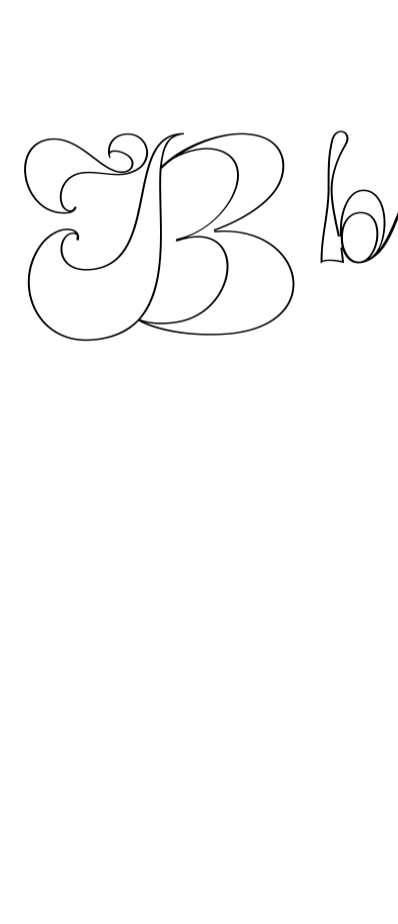
Introducing Break Monday Font: Elevate Your Designs with Elegance
In the world of typography, fonts play a crucial role in conveying the tone and aesthetic of a design. Among the myriad of fonts available, the Break Monday Font stands out for its unique blend of elegance and playfulness. This article delves into the features, benefits, and uses of the Break Monday Font, particularly its outline version, which has been gaining attention for its neat, beautiful, and elegant handwritten style.
What is Break Monday Font?
Break Monday Font, and its specifically designed outline version, is a typeface that embodies both sophistication and whimsy. It’s a handwritten font that offers a fresh alternative to traditional fonts, making it perfect for designers looking to add a personal touch to their projects. The Break Monday Outline Font is characterized by its elegant strokes, beautiful ligatures, and a distinctly refined appearance that sets it apart from more conventional typefaces.
Key Features of Break Monday Outline Font
- Neat and Elegant Design: The font boasts a clean and sophisticated design, making it suitable for high-end projects or any design that requires a touch of elegance.
- Handwritten Style: Despite its elegance, the font retains a personal, handwritten feel, adding warmth and character to any text.
- PUA Encoded: Being PUA (Private Use Area) encoded, the Break Monday Outline Font allows easy access to all glyphs and swashes, providing designers with a wide range of creative possibilities.
- Fun and Relaxed: The font’s playful undertones make it ideal for projects that require a friendly and approachable tone, such as wedding invitations, greeting cards, and more.
Uses of Break Monday Outline Font
The versatility of the Break Monday Outline Font makes it suitable for a variety of design projects. Here are some of the most popular applications:
Popular Design Projects Using Break Monday Outline Font
- Wedding Invitations: The elegant and personal nature of the font makes it perfect for wedding invitations, setting the tone for a sophisticated and memorable event.
- Greeting Cards: Whether it’s for a birthday, anniversary, or holiday, the Break Monday Outline Font adds a touch of class and warmth to greeting cards.
- Branding and Packaging: For brands looking to convey a sense of luxury, sophistication, or approachability, this font can be a valuable asset in creating a distinctive brand identity.
- Digital and Print Media: From blog headers to magazine titles, the font’s readability and aesthetic appeal make it suitable for both digital and print media.
Why Choose Break Monday Outline Font?
With so many fonts available, what makes Break Monday Outline Font a preferred choice for designers? Here are a few reasons:
Reasons to Choose Break Monday Outline Font
- Timeless Style: The font’s design is radically different yet timeless, ensuring that your designs remain relevant and stylish for years to come.
- Ease of Use: Thanks to its PUA encoding, designers can easily access and incorporate the font’s glyphs and swashes, streamlining the design process.
- Versatility: Its elegant yet playful nature makes it suitable for a wide range of projects, from formal events to casual branding.
- Unique Appeal: In a sea of similar fonts, Break Monday Outline Font offers a unique appeal that can help your designs stand out.
Using the Break Monday Outline Font in your projects is straightforward. Here’s a simple guide:
A Simple Guide to Using Break Monday Outline Font
- Access Glyphs and Swashes: Use a software like Adobe Illustrator or Photoshop to access the PUA encoded glyphs and swashes, allowing for extensive customization.
The Break Monday Outline Font is a versatile and elegant typeface that can elevate your designs with its unique blend of sophistication and playfulness. Whether you’re working on wedding invitations, branding projects, or digital media, this font offers the perfect combination of style, readability, and creative freedom. With its PUA encoding, beautiful design, and wide range of applications, Break Monday Outline Font is an excellent addition to any designer’s toolkit.
Final Thoughts
Incorporating the Break Monday Outline Font into your design projects can significantly enhance their aesthetic appeal and emotional impact. Its timeless elegance, combined with a playful touch, makes it an ideal choice for designers aiming to create memorable and distinctive designs. Explore the creative possibilities with Break Monday Outline Font and discover how it can transform your designs.